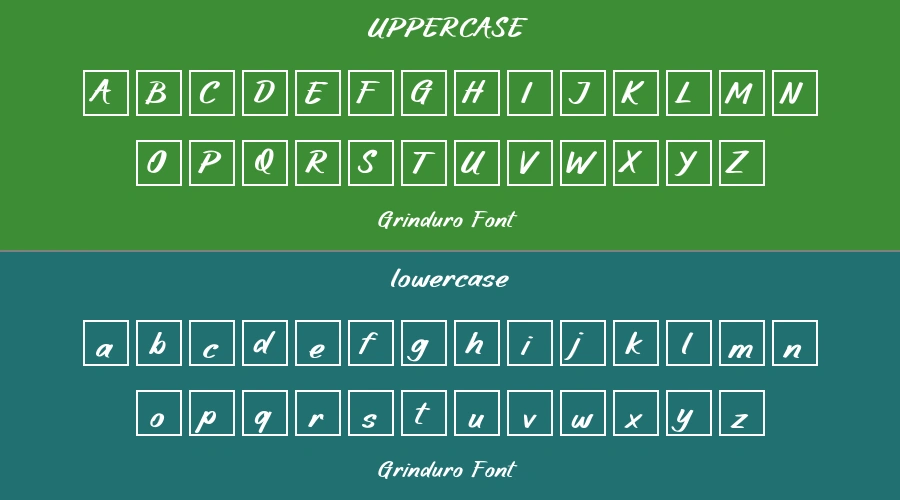
About Grinduro Font
Designed with precision, Grinduro Font merges decorative alternates with technical excellence in every character. This versatility makes it particularly effective for technical documentation, where versatility and consumer connection directly impact communication quality. Each letterform demonstrates meticulous craftsmanship.
Technical excellence shines through elements like engineered curves and case-sensitive forms, enhancing typographic versatility. In advertisements settings, Grinduro Font proves its worth through superior archive stability. The thoughtful execution of joint detail and lifestyle connection ensures professional results.
Grinduro Font |